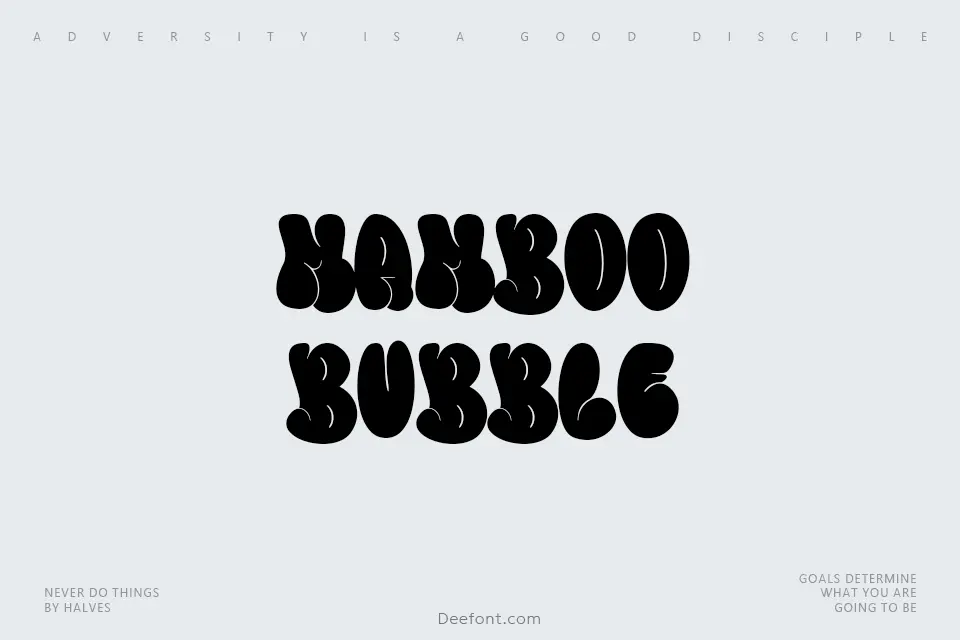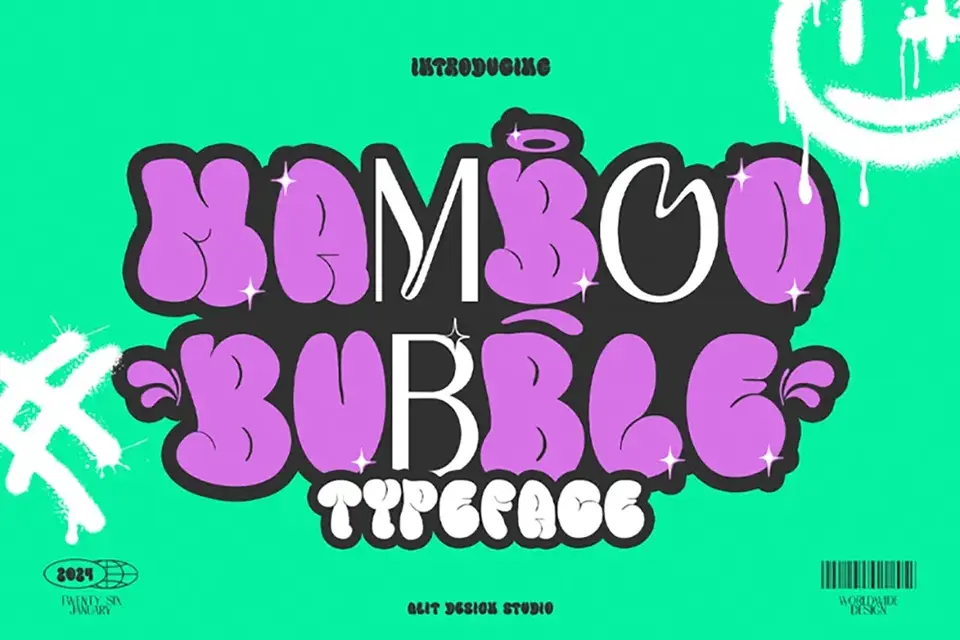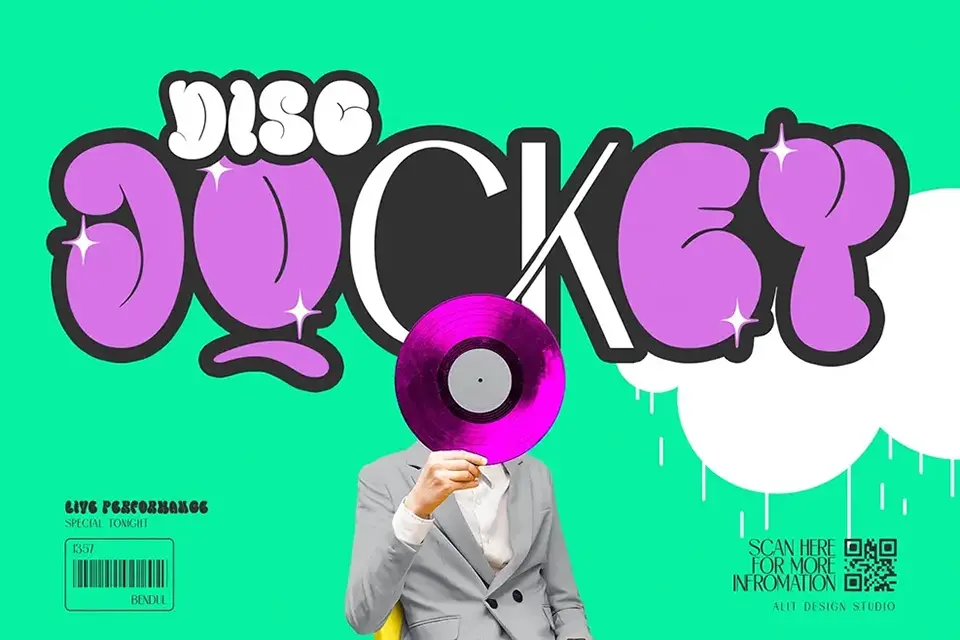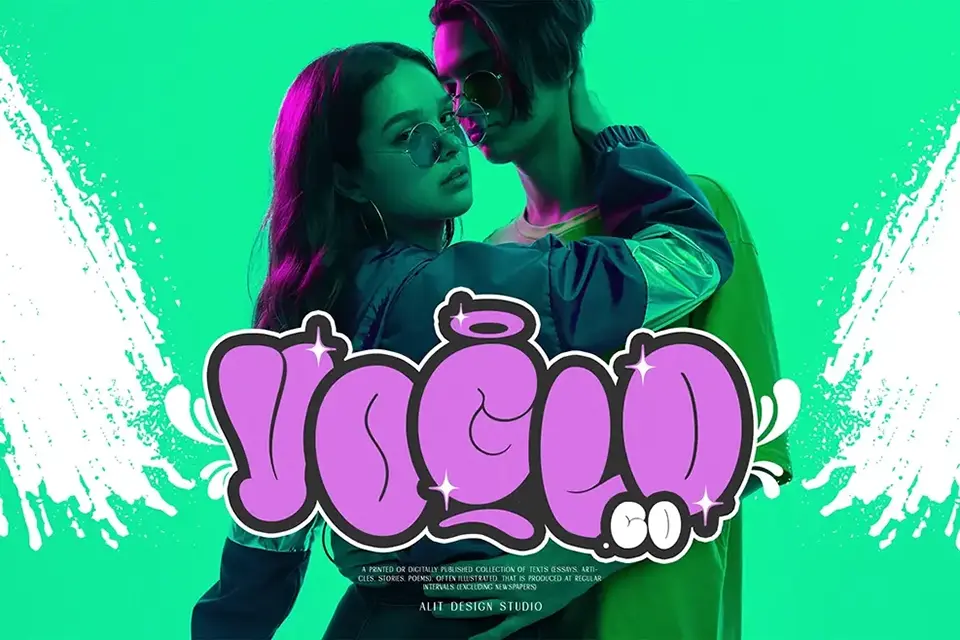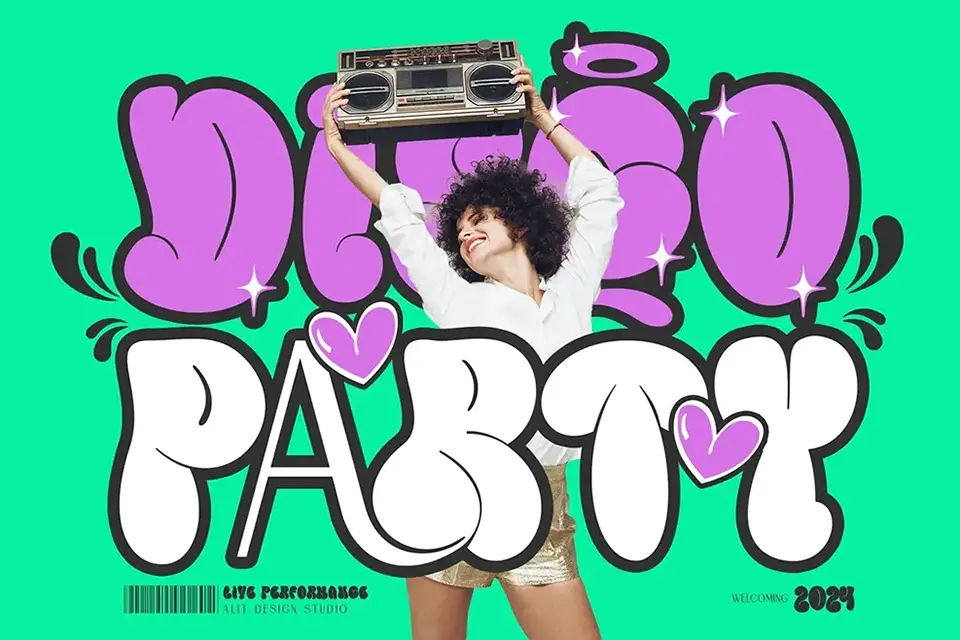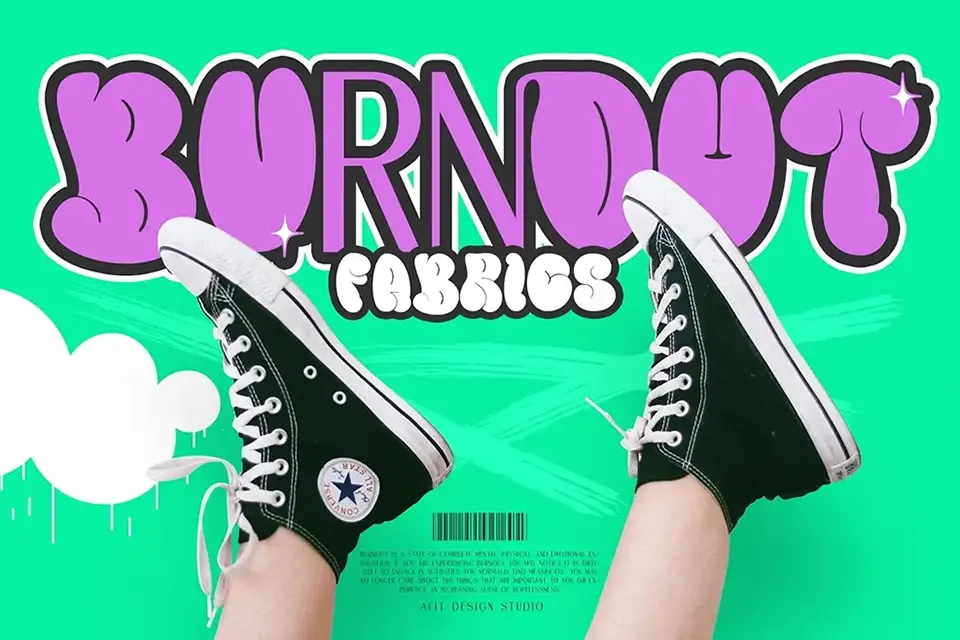
Mamboo bubble Font
Mamboo Bubble is a dynamic fusion of sleek sans serif typography and edgy bubble graffiti style, offering urban expression with rounded, inflated letterforms. This eye-catching display font captures the essence of street art creativity, featuring playful curves and bold presence perfect for designers, artists, and creatives seeking distinctive visual impact in posters, branding materials, and digital artwork. With its versatile graffiti-inspired aesthetic, it brings authentic urban edge and dynamic energy to any creative project.